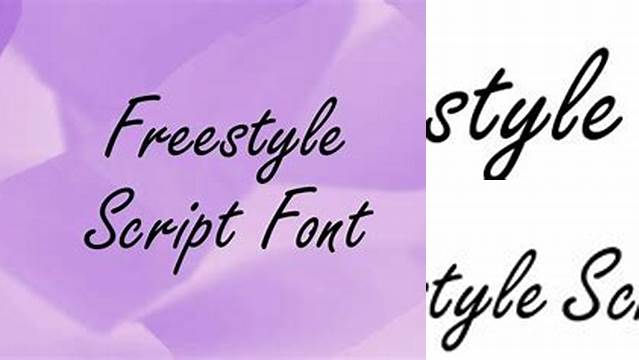
Hey guys! Looking for a groovy, eye-catching font that screams fun? Well, you're in luck! This article is all about the Freestyle Script Std Regular font and how you can snag a free download. We'll dive into its history, its uses, and where you can safely and legally get your hands on this awesome typeface. So, buckle up, buttercups, because we're about to get font-astic!
Understanding the Allure of Freestyle Script Std
Freestyle Script Std Regular has a certain charm, doesn't it? It's bubbly, it's playful, and it just feels good. But what exactly makes this font so appealing? Let's break it down. Firstly, the handwritten aesthetic is a huge draw. In a world of clean lines and digital perfection, Freestyle Script Std offers a refreshing dose of personality. It looks like someone actually wrote it, which adds a human touch that's often missing from other fonts. This makes it perfect for conveying a sense of warmth, friendliness, and approachability.
Secondly, its versatility is key. While it might not be the go-to font for formal documents, it shines in a variety of creative applications. From invitations and greeting cards to posters and website headers, Freestyle Script Std can instantly elevate the visual appeal of your projects. Plus, it's incredibly readable, even at smaller sizes, which is a huge win. Finally, the font's inherent sense of fun is undeniable. It's a font that makes you smile, and that's a powerful thing. Whether you're designing a birthday card, a flyer for a local event, or simply sprucing up your website, Freestyle Script Std can bring a touch of joy to your work. It's a font that doesn't take itself too seriously, and that's part of its charm.
The Distinctive Characteristics of the Font
The Freestyle Script Std Regular font boasts a unique character set that immediately grabs attention. One of its most recognizable features is the flowing, cursive style, designed to mimic the spontaneity of handwriting. The strokes are dynamic, with varying thicknesses that lend a sense of movement and energy to the text. Each letter appears to have been penned with a flourish, imparting a lively and informal feel.
The font's design intentionally avoids rigid uniformity, resulting in a less structured appearance that enhances its friendly and approachable quality. The letters are not perfectly aligned; instead, they seem to dance across the page. This subtle irregularity adds a personal touch, making the font feel less like a cold, digital creation and more like a warm, handcrafted element. This organic quality makes Freestyle Script Std an excellent choice for projects aimed at capturing the attention of an audience while still communicating in a casual style.
Moreover, the font includes distinctive letterforms that contribute to its overall appeal. The capital letters often feature extended ascenders and descenders, adding a touch of elegance and flair. The curves and loops are carefully crafted to create a sense of harmony and rhythm within the text. These carefully designed details work together to produce a font that is both aesthetically pleasing and highly legible. The consistent design elements make this font incredibly popular amongst designers looking to convey a sense of creativity and playfulness.
Freestyle Script Std is far more than just a collection of letters; it's an expression of creativity. By embracing the imperfections and flow of real handwriting, the font offers a refreshing alternative to the rigid precision of many digital typefaces. This characteristic makes it a favorite among designers aiming to add personality and approachability to their visual communication. It's a font that invites a smile and a sense of connection, making it a versatile choice for a wide range of creative projects.
Key Features That Define Its Popularity
Freestyle Script Std Regular's popularity stems from a few key features that make it stand out in the crowded world of fonts. First and foremost, its handwritten appearance gives it a unique and personal feel. In a digital landscape, the font's organic and natural style provides a welcome break from the uniformity of many other typefaces. It adds a human touch that resonates with audiences and makes the design more memorable.
Secondly, its readability at various sizes is a critical advantage. Unlike many decorative fonts that become illegible when scaled down, Freestyle Script Std maintains its clarity. This feature is especially valuable for projects where text needs to be visible across different mediums, from small print on packaging to large headlines on billboards. Its versatility makes it a practical choice for various applications, ensuring the message is clearly communicated.
Thirdly, the font's versatility in design projects is a significant draw. It can be adapted to suit different styles and themes, making it suitable for various design needs. Whether used for invitations, logos, or website headers, Freestyle Script Std adds a touch of creativity and playfulness. This adaptability allows designers to experiment with different looks while retaining the font's inherent charm and character. Its compatibility with various graphic design software and platforms makes it easy to integrate into a wide range of projects.